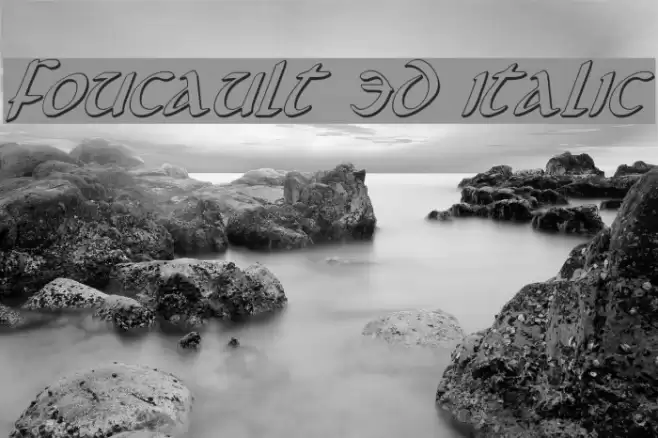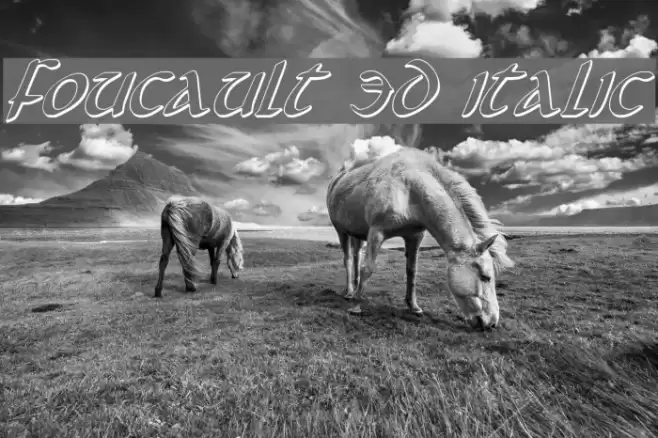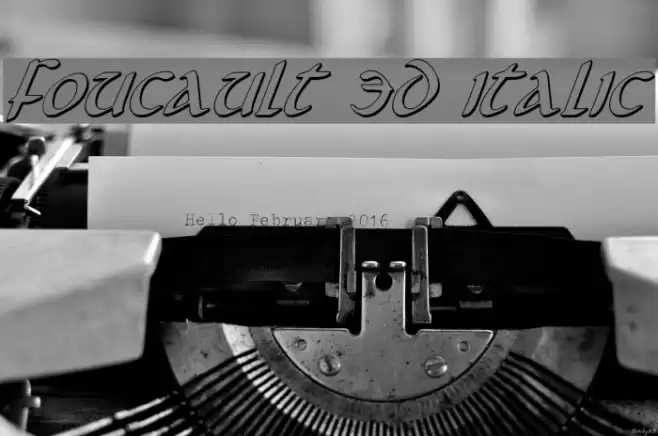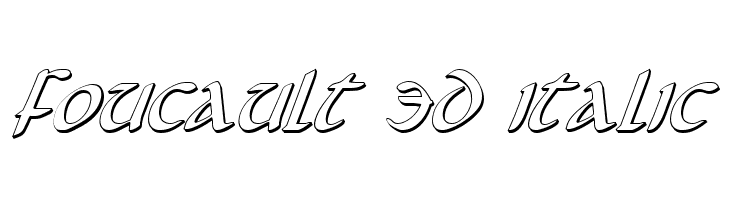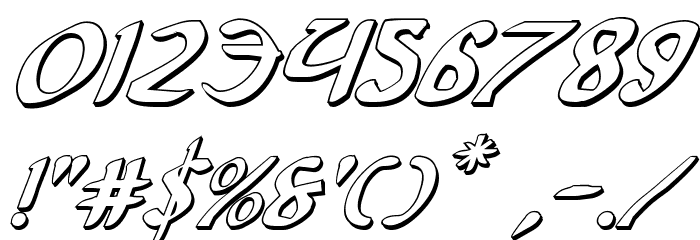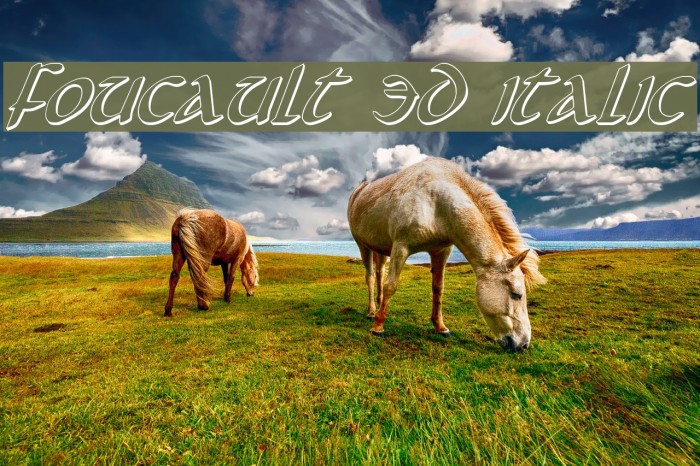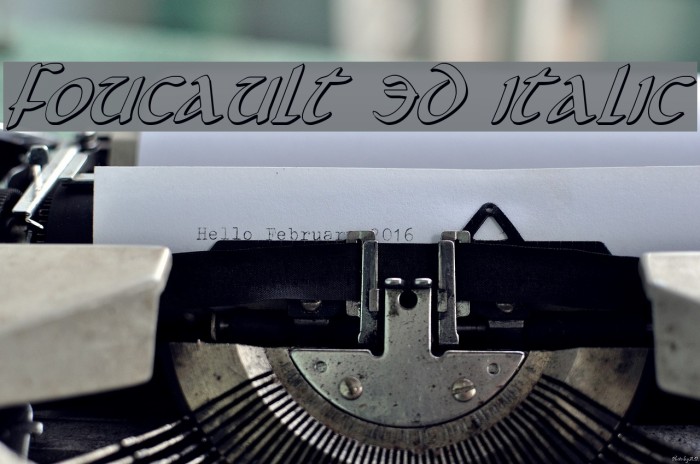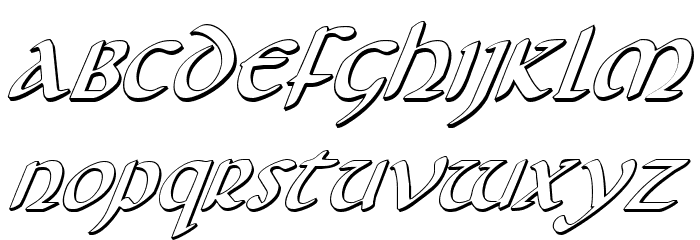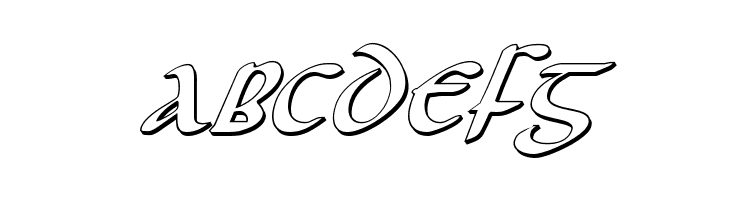
Foucault 3D Italic Font
Foucault 3D Italic Description
This font features a dynamic and bold 3D italic style, characterized by its strong, angular lines and a sense of depth created by the shadowing effect. The uppercase and lowercase letters maintain a consistent slant, enhancing the italicized appearance. The numerals and special characters follow the same stylistic approach, ensuring uniformity across all glyphs. The font's design is both modern and decorative, making it stand out with its unique three-dimensional effect. The spacing between characters is normal, allowing for clear readability while maintaining its artistic flair.
A bold, 3D italic font with angular lines and a modern, decorative style from Gothic fonts.
- Proposed Projects: Ideal for projects that require a striking and modern look, such as posters, logos, and headlines.
- Overall Style: Modern, Decorative